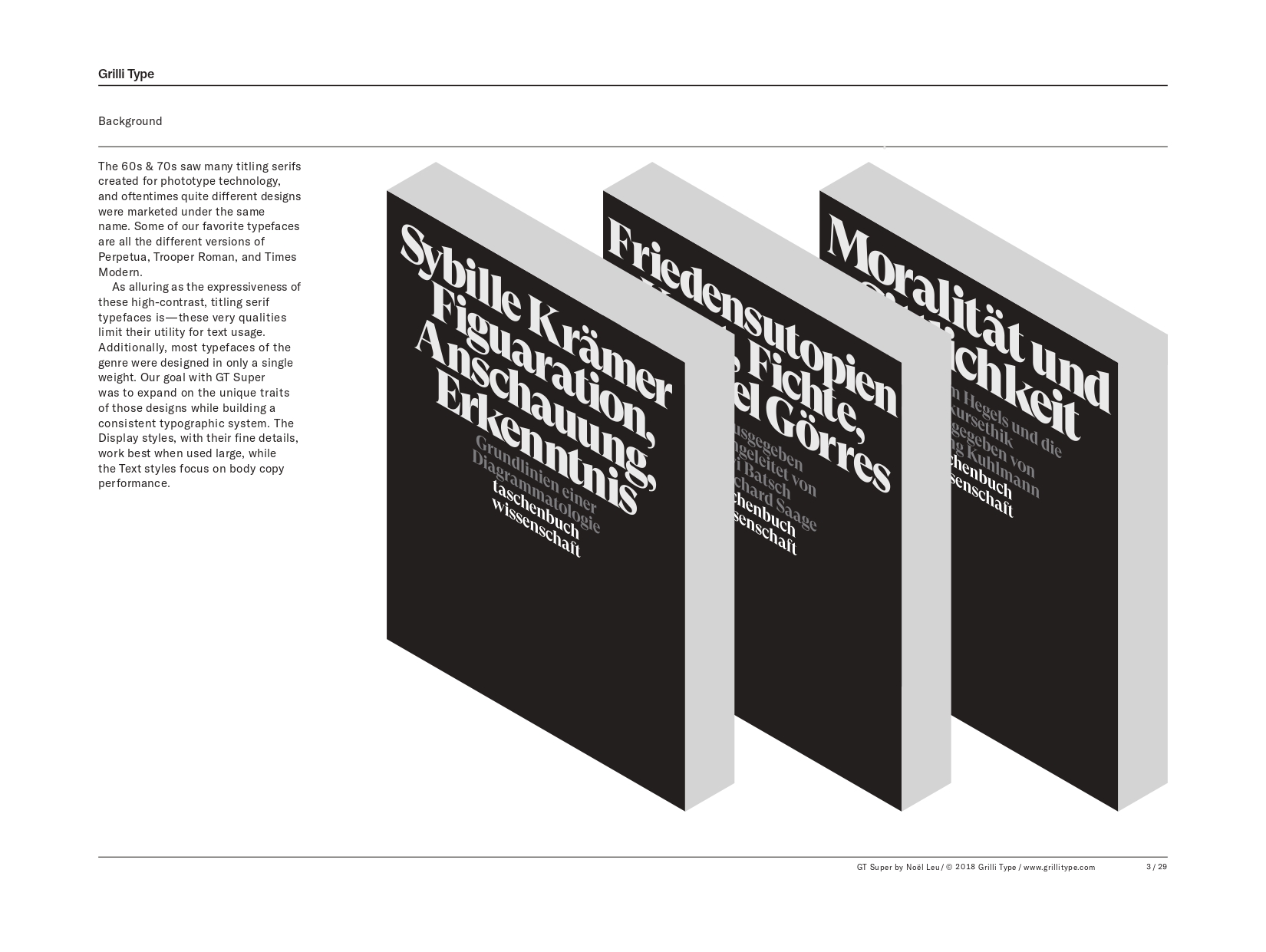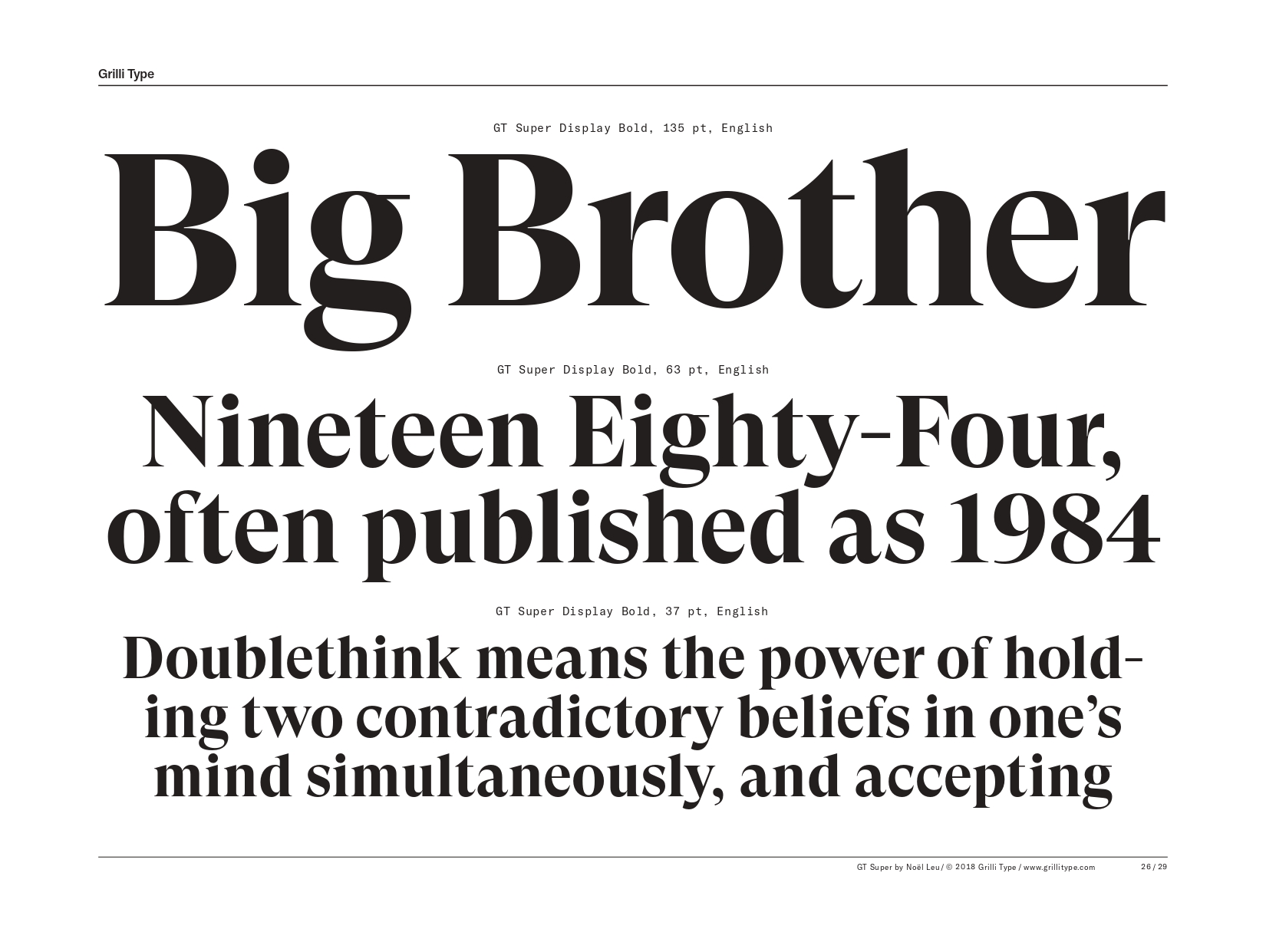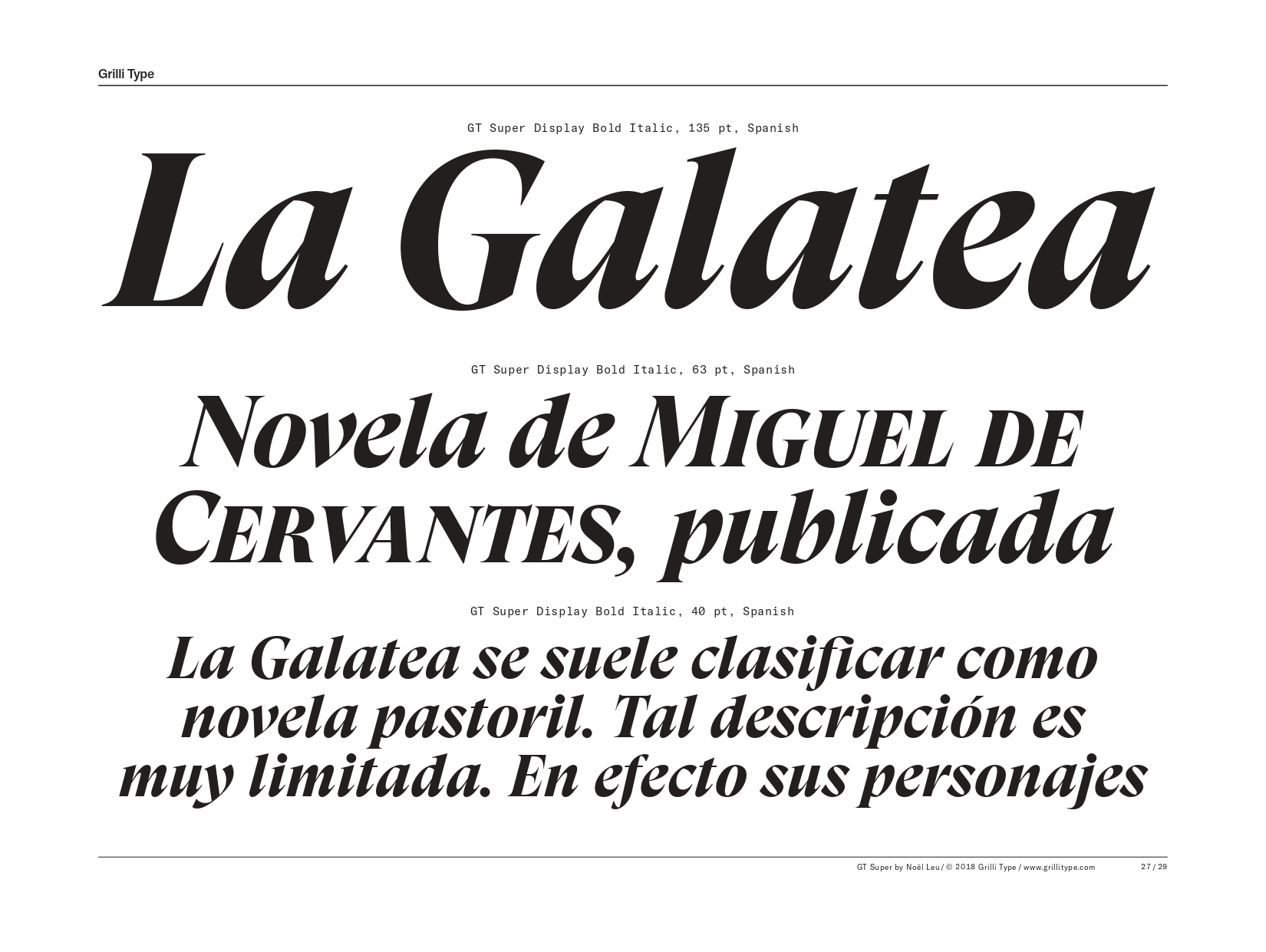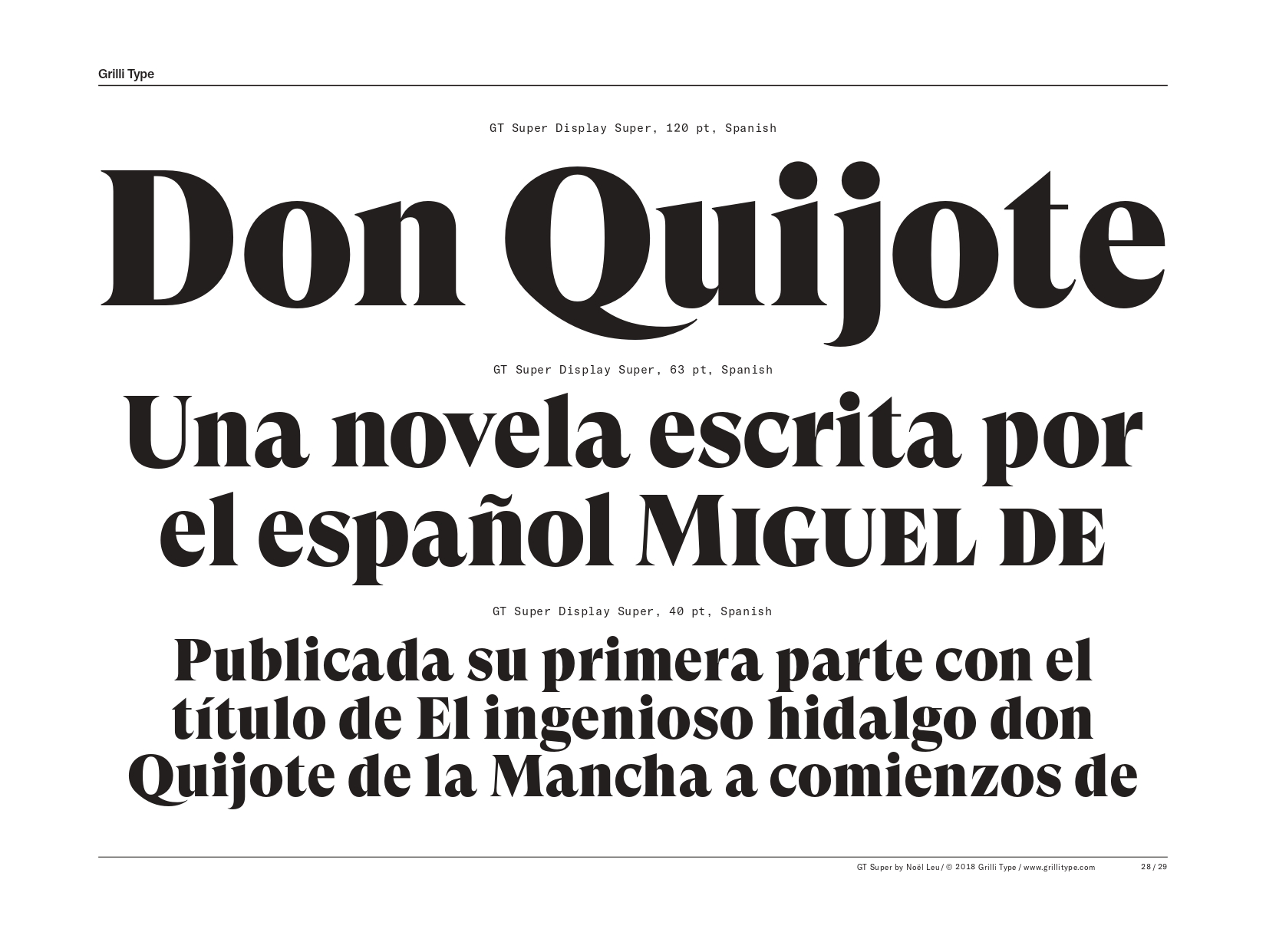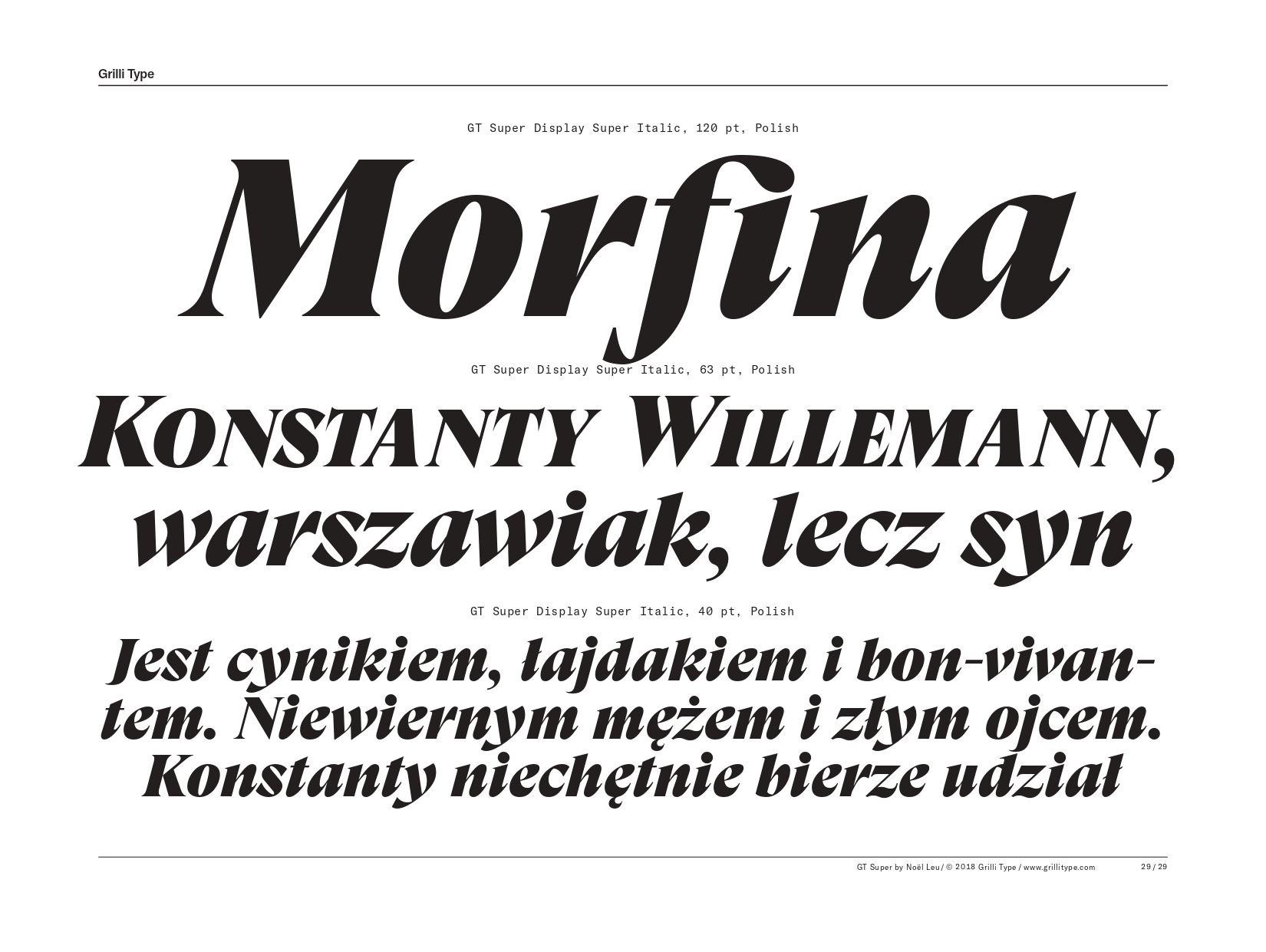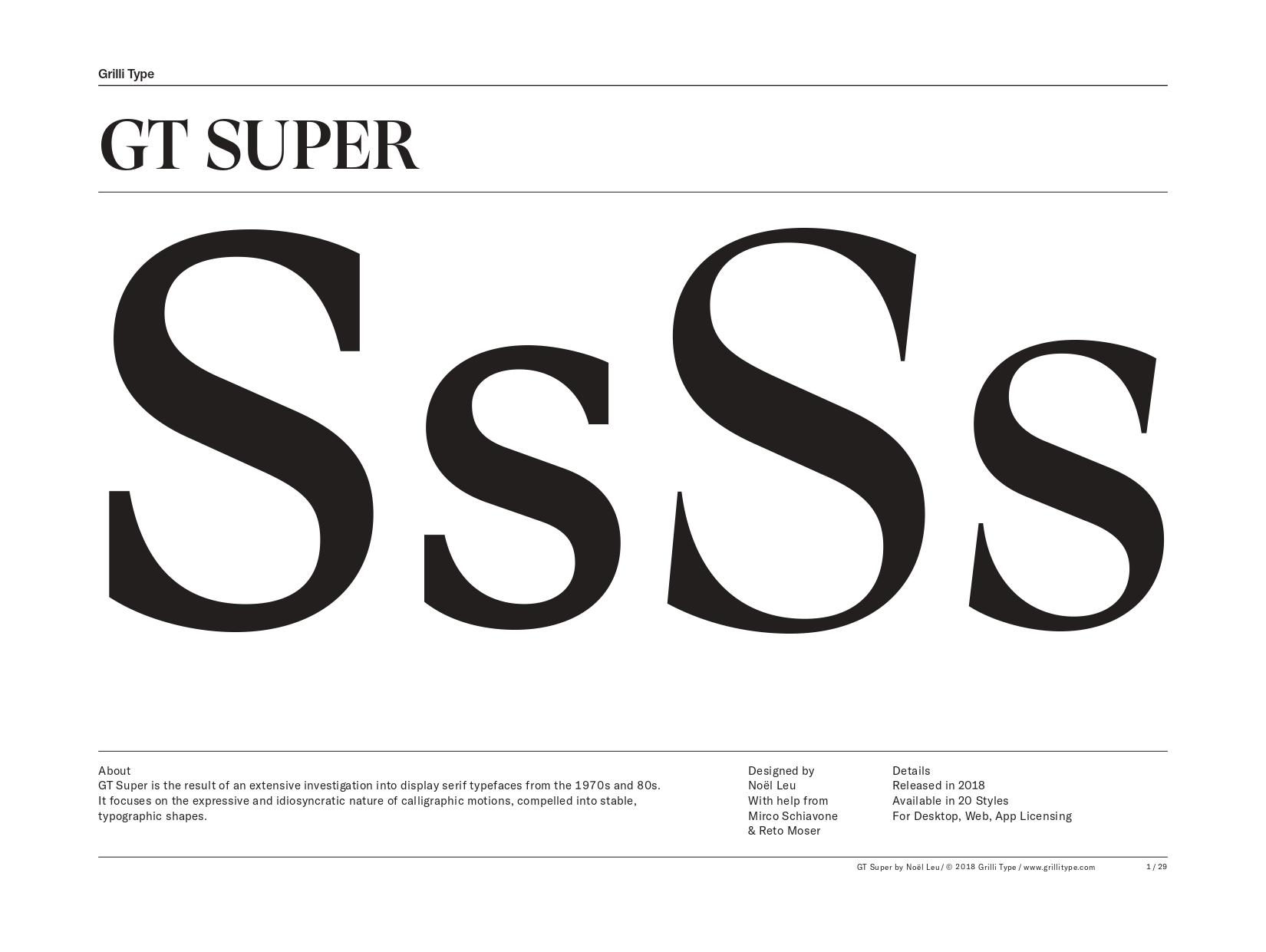
GT Super Font
The GT Super Font is perfect for premium editorial designs, sophisticated magazine layouts, elegant book typography, high-end branding projects, luxury publication systems, refined corporate communications, contemporary newspaper headlines, upscale website typography, professional presentation materials, and distinguished literary publications.
What makes the GT Super Font so exciting is its exceptional combination of typographic excellence with versatile performance that creates superior readability and sophisticated visual appeal across all professional applications. This outstanding typeface features meticulously crafted letterforms, optimal character proportions, and refined design details that establish uncompromising quality perfect for projects demanding the highest standards of typographic excellence. The font's superior character and professional sophistication make it an exceptional choice for publishers, designers, and brands seeking to communicate authority, intelligence, and refined quality with unmatched typographic performance.
The GT Super Font family includes comprehensive stylistic options, featuring multiple weights from Thin to Black, condensed and extended variations, plus complete italic sets. Each variation maintains the signature superior quality while offering different levels of visual presence and typographic versatility, providing designers with complete control for creating sophisticated editorial hierarchies and premium publication systems.
The sophisticated design engineering of GT Super Font demonstrates master-level typography craftsmanship, with each character optimized for perfect optical balance, exceptional readability, and visual harmony across all professional contexts. The font's extensive character set includes comprehensive international language support, advanced OpenType features, professional punctuation, and editorial symbols, ensuring seamless integration into global publishing workflows and professional communications.
Expertly optimized for both digital and print premium applications, this remarkable font maintains flawless clarity and superior performance across all media formats and publication requirements. From large-scale editorial headlines to detailed body text, GT Super Font performs exceptionally while preserving its distinctive superior character and professional excellence.